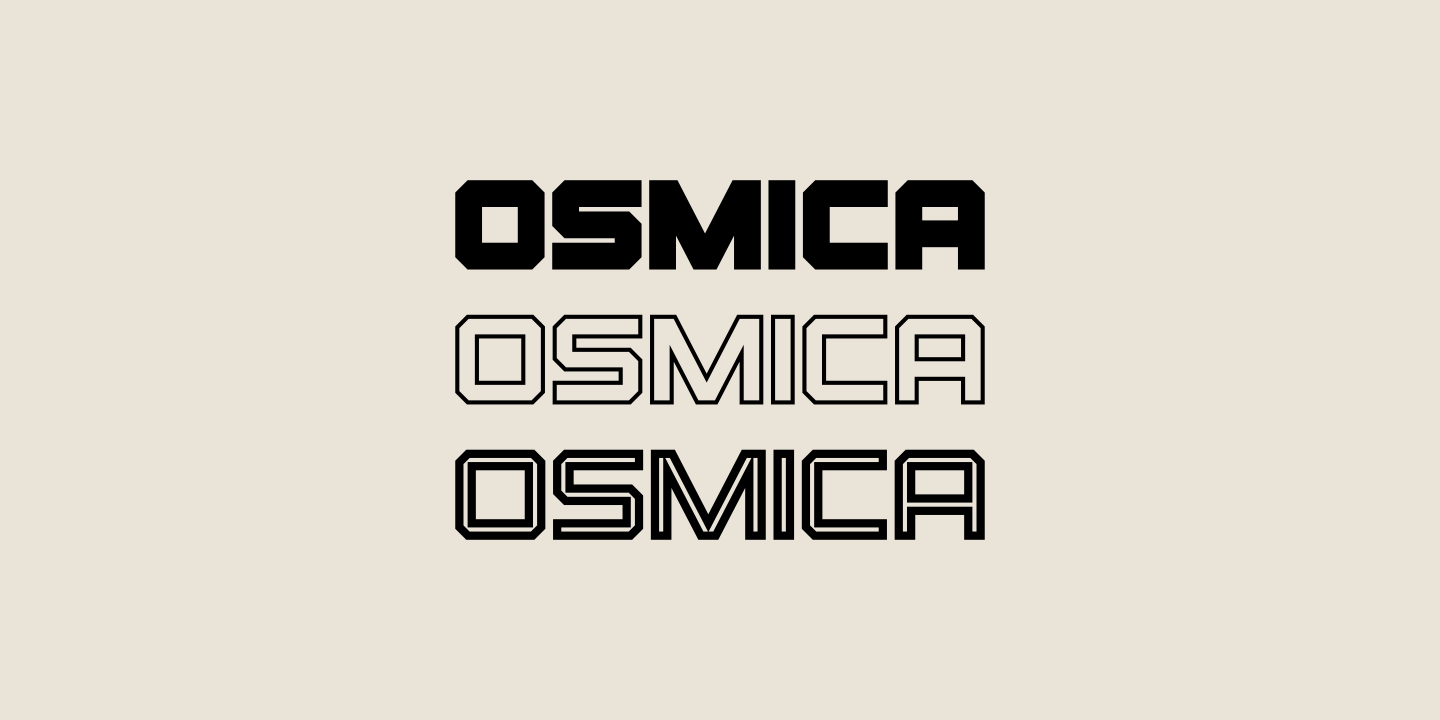
Osmica Font is perfect for musical performance branding, octave harmony educational materials, symphonic orchestra communications, music theory publications, musical instrument marketing, and melodic composition projects. Its harmonious character makes it ideal for music conservatories, professional musicians, music educators, symphony orchestras, and any application requiring rhythmic typography that conveys musical precision, harmonic beauty, and the sophisticated artistry of classical and contemporary musical composition and performance.
Osmica Font is exciting because it captures the mathematical precision and harmonic beauty of musical octaves through systematically crafted letterforms that reflect the elegant relationships between musical notes and the sophisticated structure underlying all musical composition. Its octave proportions and musical details evoke the satisfying resolution of harmonic progressions and the timeless beauty of musical mathematics, making it perfect for organizations celebrating musical excellence and acoustic artistry. The font's musical character transforms communications into symphonic expressions of harmonic sophistication.
Osmica Font family includes harmonically-inspired weight variations typically featuring Light, Regular, Medium, and Bold options with rhythmic styling that maintains musical authenticity. The family often incorporates musical symbols, octave markers, and harmonic elements designed for musical applications, providing designers with comprehensive tools for creating authentic, music-focused typographic compositions.
When selecting musical harmony typography solutions, Osmica Font Free Download represents an exceptional choice for musical education and performance projects. This harmonious typeface brings instant musical authenticity to any design, making it invaluable for music schools, professional musicians, and musical organizations celebrating harmonic excellence. Whether you're developing music education materials, creating symphony orchestra branding, or designing musical performance promotions, Osmica Font provides the harmonic precision and musical authenticity essential for expressing musical sophistication in today's classical and contemporary music marketplace.